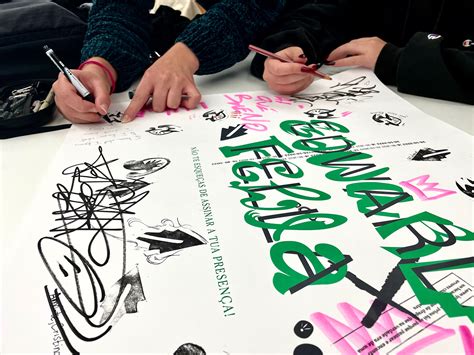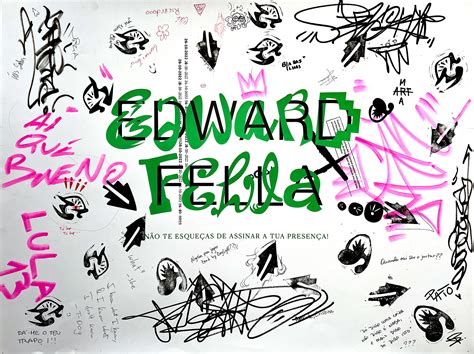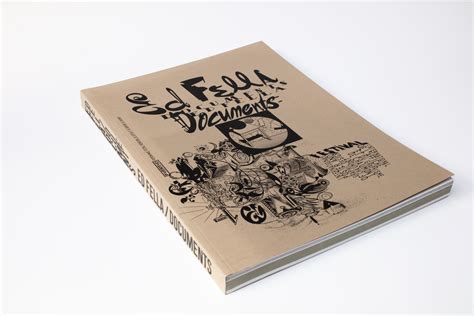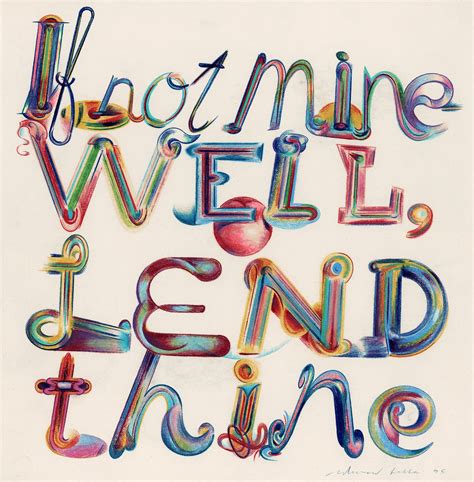
Typography is an art form that combines creativity and technical skill to convey messages effectively. Among the many influential figures in the world of typography, Ed Fella stands out as a pioneer whose work has left an indelible mark on the design community. His unique approach to type design and his innovative use of Ed Fella Typefaces have inspired countless designers and continue to influence contemporary typography.
Who is Ed Fella?
Ed Fella is a renowned graphic designer and educator known for his distinctive style and unconventional use of typography. Born in Detroit, Michigan, Fella's career spans over four decades, during which he has made significant contributions to the field of graphic design. His work is characterized by a playful and experimental approach to type, often blending traditional and modern elements to create visually striking compositions.
The Influence of Ed Fella Typefaces
Ed Fella's typefaces are celebrated for their ability to evoke a sense of nostalgia while remaining relevant in today's design landscape. His designs often draw inspiration from vintage advertising, signage, and other historical sources, giving them a timeless quality. Some of the key characteristics of Ed Fella Typefaces include:
- Playful and Experimental: Fella's typefaces often feature unconventional letterforms and unexpected combinations, making them stand out in any design project.
- Historical Inspiration: Many of his designs are influenced by historical typography, giving them a retro feel that appeals to designers looking to evoke a sense of the past.
- Versatility: Despite their unique characteristics, Ed Fella Typefaces are highly versatile and can be used in a variety of contexts, from branding and advertising to editorial design.
Notable Works by Ed Fella
Ed Fella's body of work is extensive and diverse, but a few projects stand out as particularly influential. These works showcase his mastery of typography and his ability to push the boundaries of design.
Ed Fella's Poster Designs
One of Fella's most notable contributions to the design world is his poster designs. These posters often feature bold, eye-catching typography that commands attention. Fella's use of color, texture, and composition in his posters is equally impressive, creating a cohesive and impactful visual experience. His posters have been exhibited in galleries and museums around the world, cementing his status as a leading figure in graphic design.
Ed Fella's Typeface Designs
In addition to his poster designs, Ed Fella has created several typefaces that have become staples in the design community. Some of his most popular typefaces include:
| Typeface Name | Description |
|---|---|
| Fella Script | A playful, hand-drawn script typeface that captures the essence of Fella's experimental style. |
| Fella Display | A bold, display typeface designed for headlines and large-scale text, featuring unique letterforms and a strong visual presence. |
| Fella Sans | A modern sans-serif typeface with a retro twist, combining clean lines with vintage-inspired details. |
These typefaces are just a few examples of Fella's extensive typographic repertoire. Each typeface reflects his unique approach to design, blending historical influences with contemporary aesthetics.
Ed Fella's Educational Contributions
In addition to his design work, Ed Fella has made significant contributions to the field of education. He has taught at several prestigious institutions, including the Cranbrook Academy of Art and the California Institute of the Arts. His teaching methods emphasize experimentation, creativity, and a deep understanding of typographic principles. Fella's students often go on to become influential designers in their own right, carrying forward his legacy of innovation and excellence.
📚 Note: Ed Fella's educational approach focuses on encouraging students to explore their own unique styles while providing them with a solid foundation in typographic theory and practice.
The Legacy of Ed Fella Typefaces
Ed Fella's impact on the world of typography is undeniable. His innovative use of type and his ability to blend historical and contemporary elements have inspired generations of designers. Ed Fella Typefaces continue to be used in a wide range of design projects, from advertising and branding to editorial and web design. His work serves as a reminder that typography is not just about choosing the right font, but about creating a visual language that communicates effectively and engages the viewer.
Fella's legacy extends beyond his own work, as his teachings and philosophies continue to influence the next generation of designers. His emphasis on experimentation, creativity, and a deep understanding of typographic principles has shaped the way many designers approach their craft. As the design world continues to evolve, the influence of Ed Fella and his typefaces will undoubtedly endure.